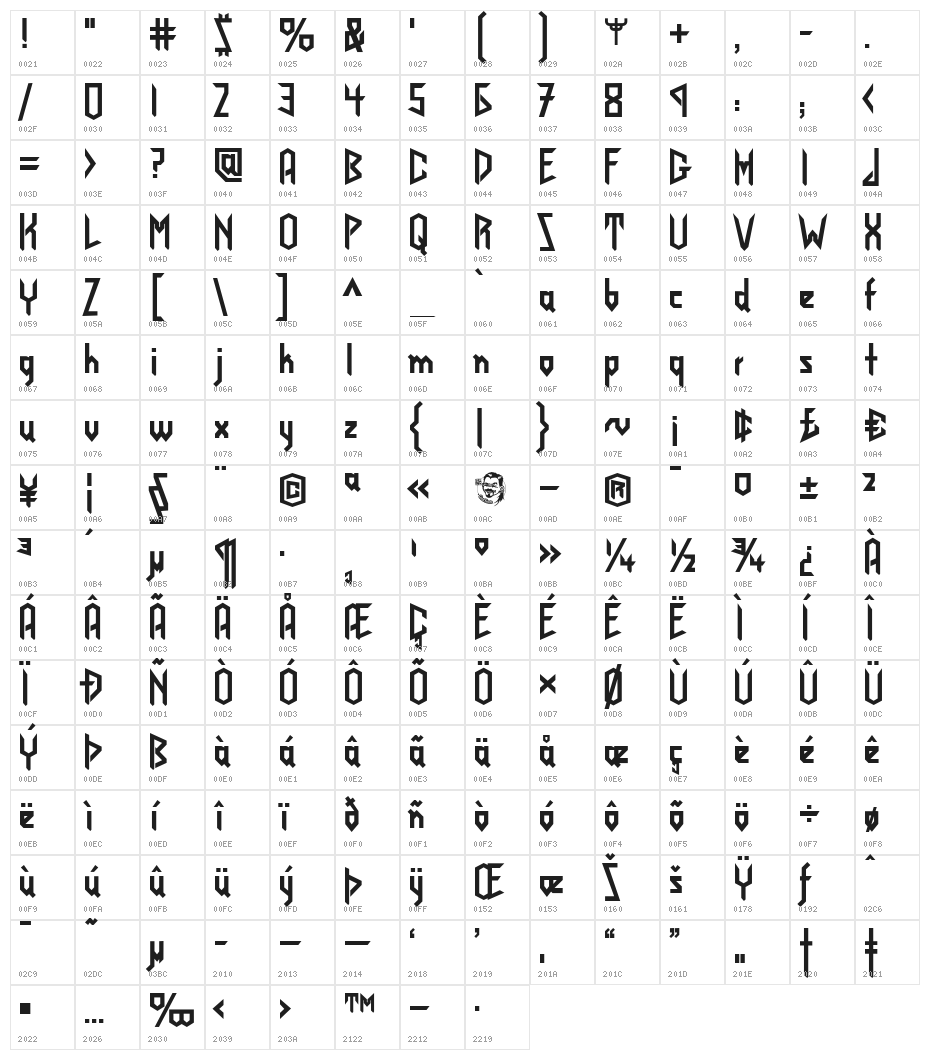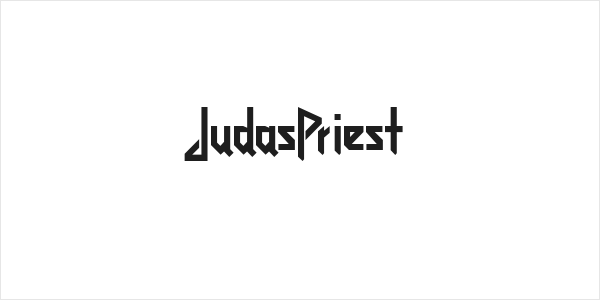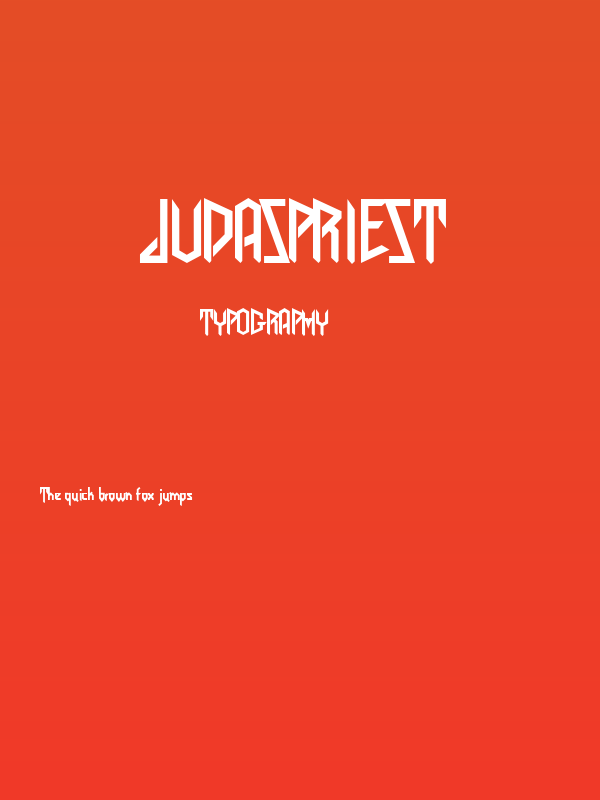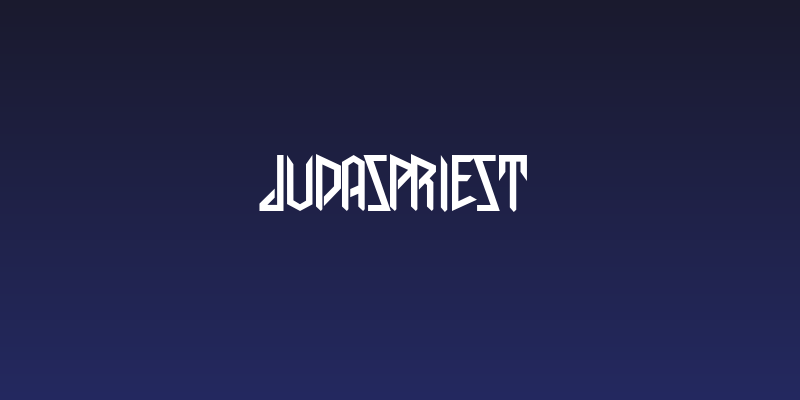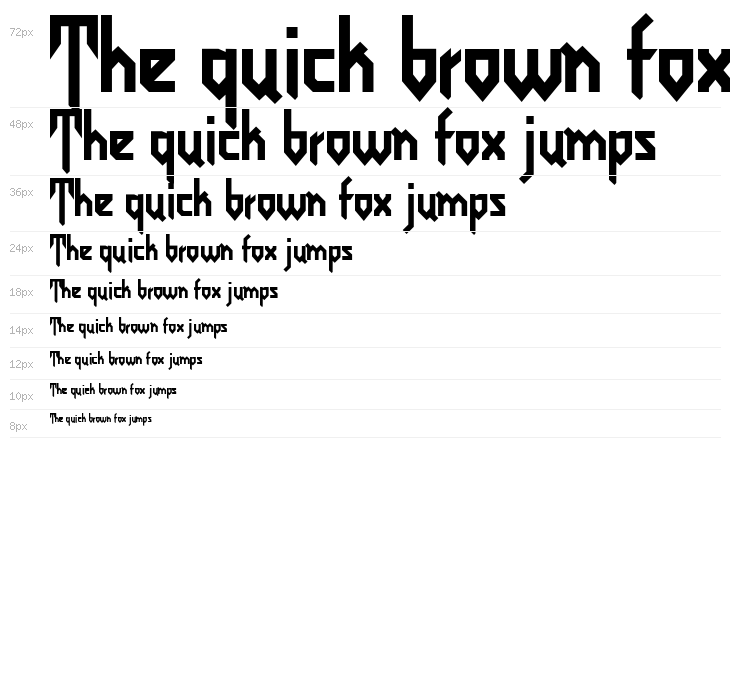
JudasPriest Font
JudasPriest Description
This font features a bold, angular design with sharp edges and a geometric structure. The uppercase letters are particularly striking, with a strong presence and a sense of movement. The lowercase letters maintain the same angular style, creating a cohesive look. Numbers and special characters follow the same design principles, ensuring consistency across all elements. The font's unique style makes it stand out, ideal for projects that require a bold and edgy aesthetic.
Proposed ProjectsIdeal for music album covers, posters, branding for edgy or modern products, and any design needing a strong visual impact.